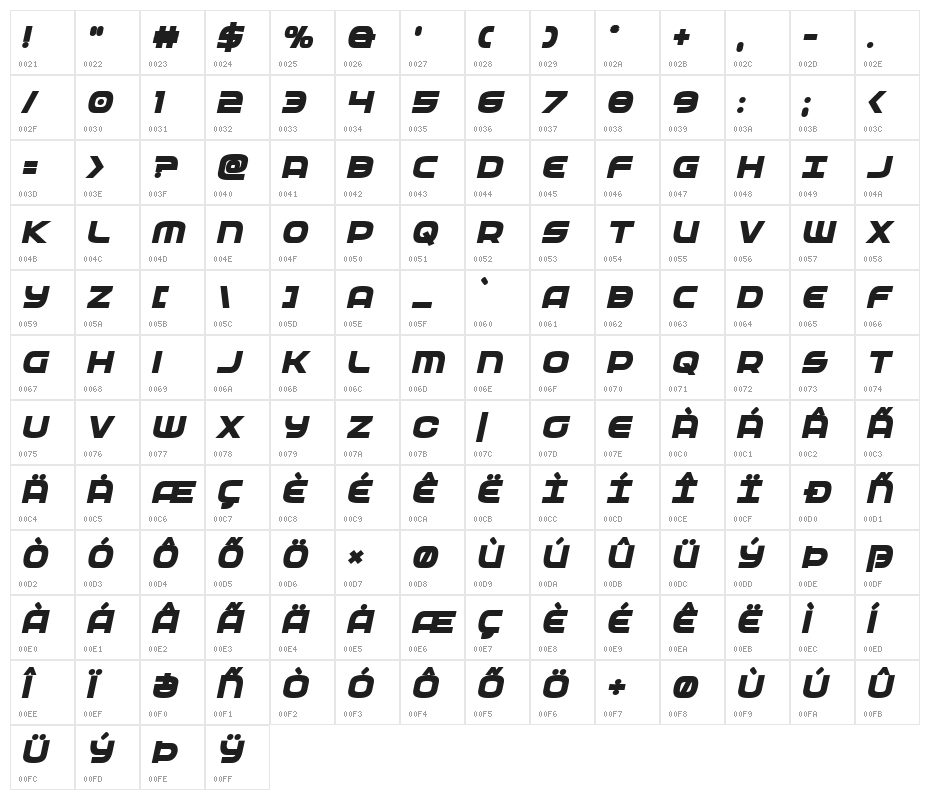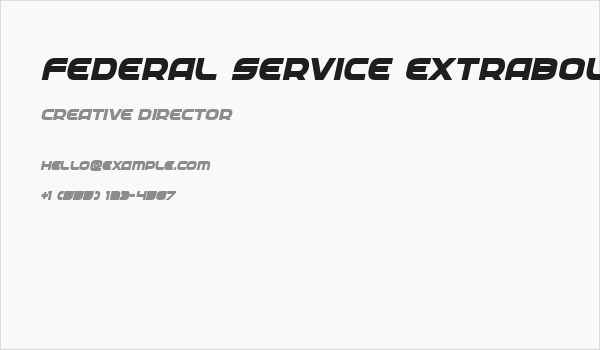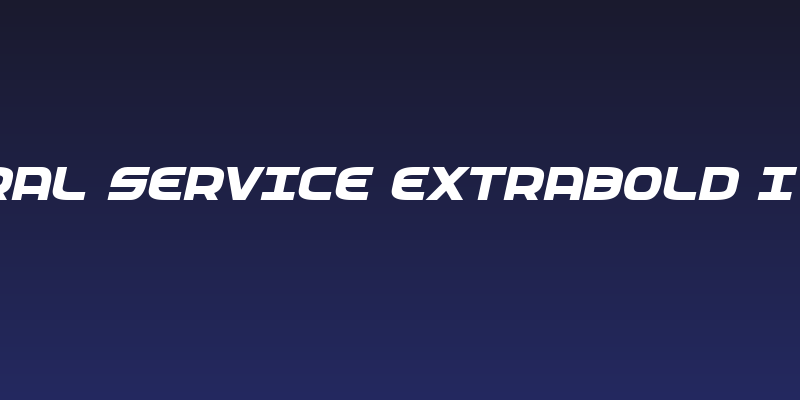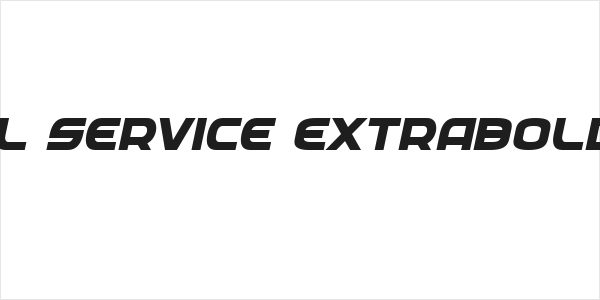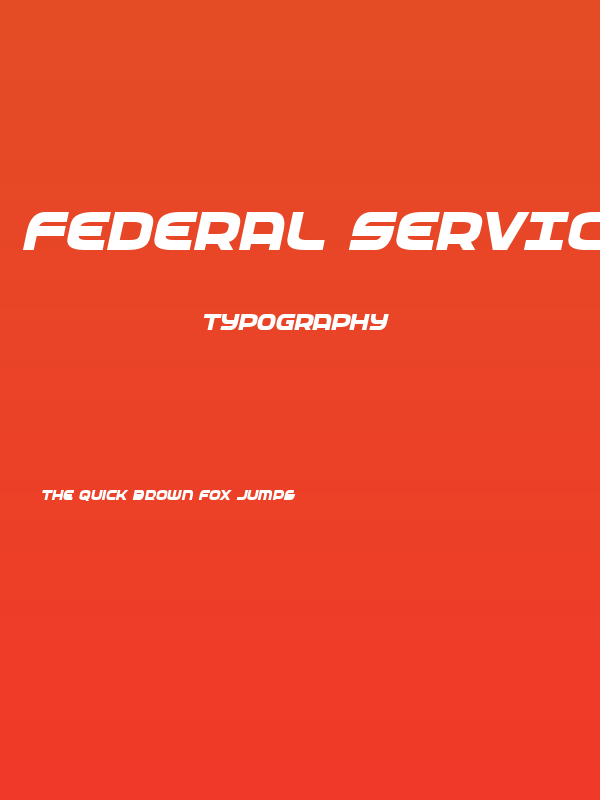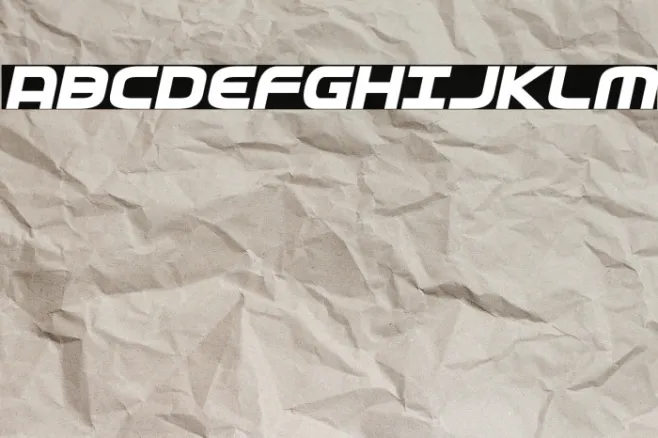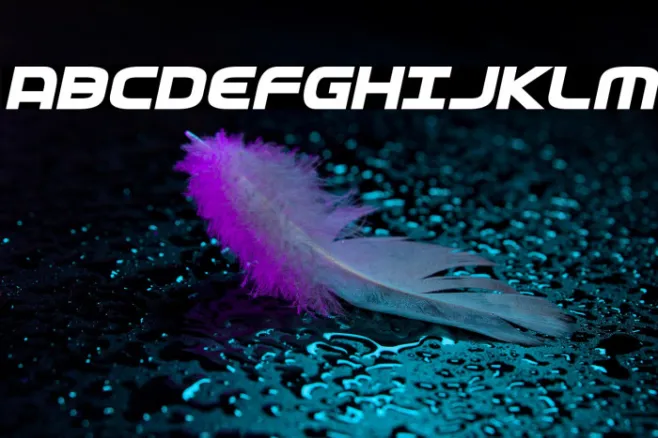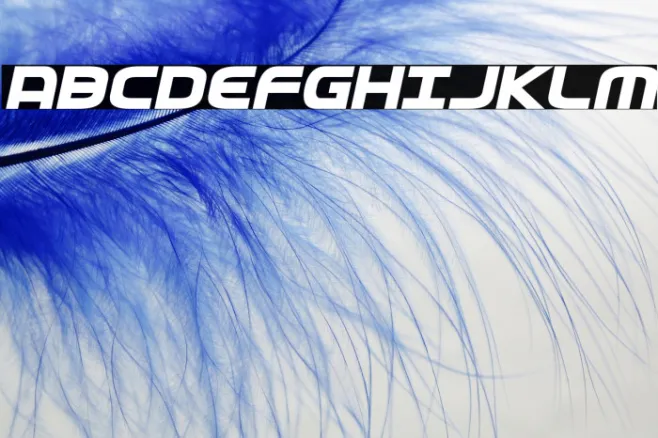
Federal Service ExtraBold Italic Font
Federal Service ExtraBold Italic Description
This font features a bold and italicized style, characterized by its strong, angular lines and dynamic slant. The uppercase and lowercase letters maintain a consistent width, giving it a uniform appearance. The numbers and special characters are designed to match the boldness of the letters, ensuring a cohesive look across all characters. The font's modern and sleek design makes it suitable for projects that require a strong visual impact. Its italic nature adds a sense of movement and energy, making it ideal for headlines or branding materials that aim to capture attention.
| Proposed Projects | Ideal for branding, headlines, sports team logos, and dynamic advertising materials. |